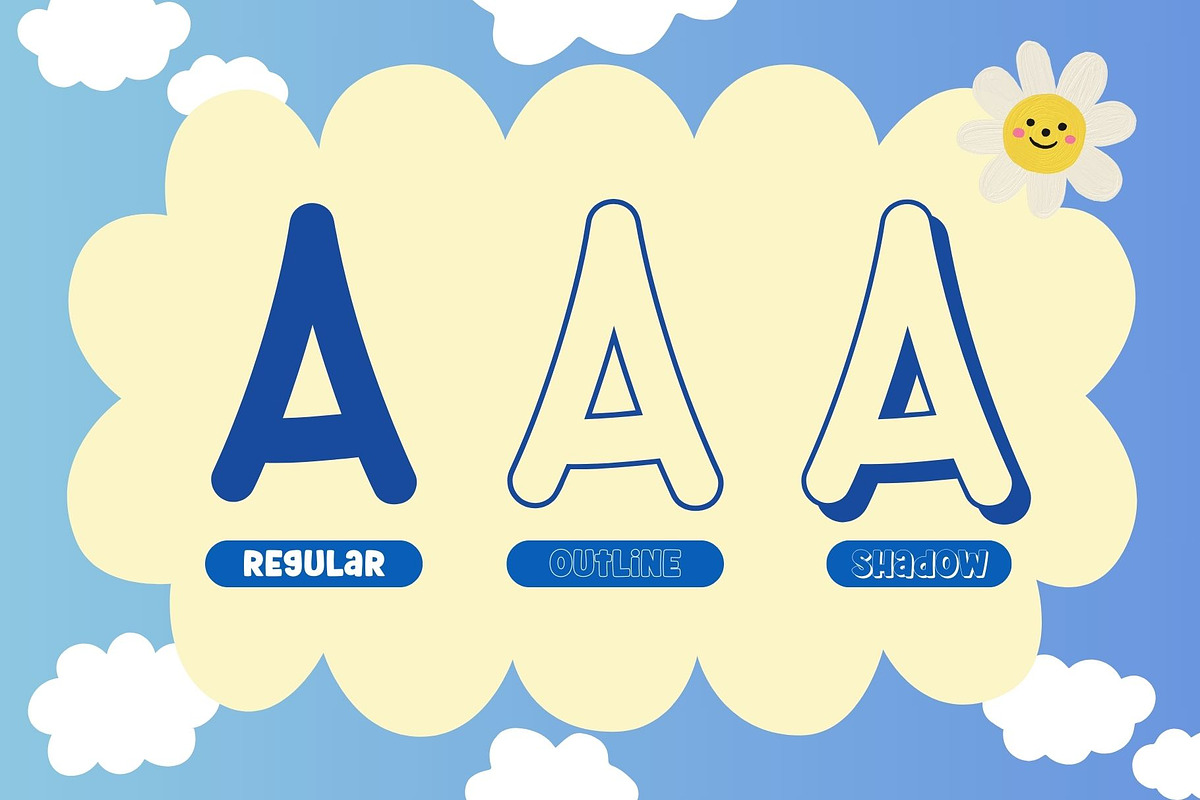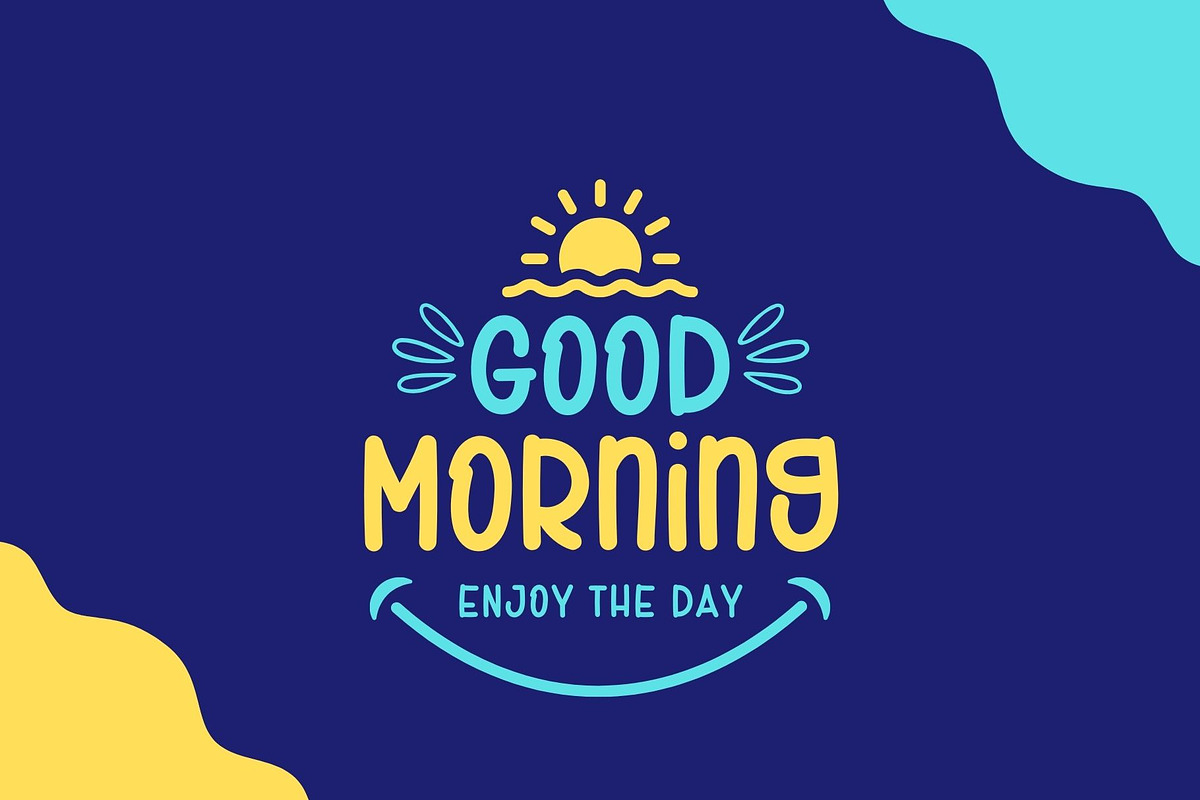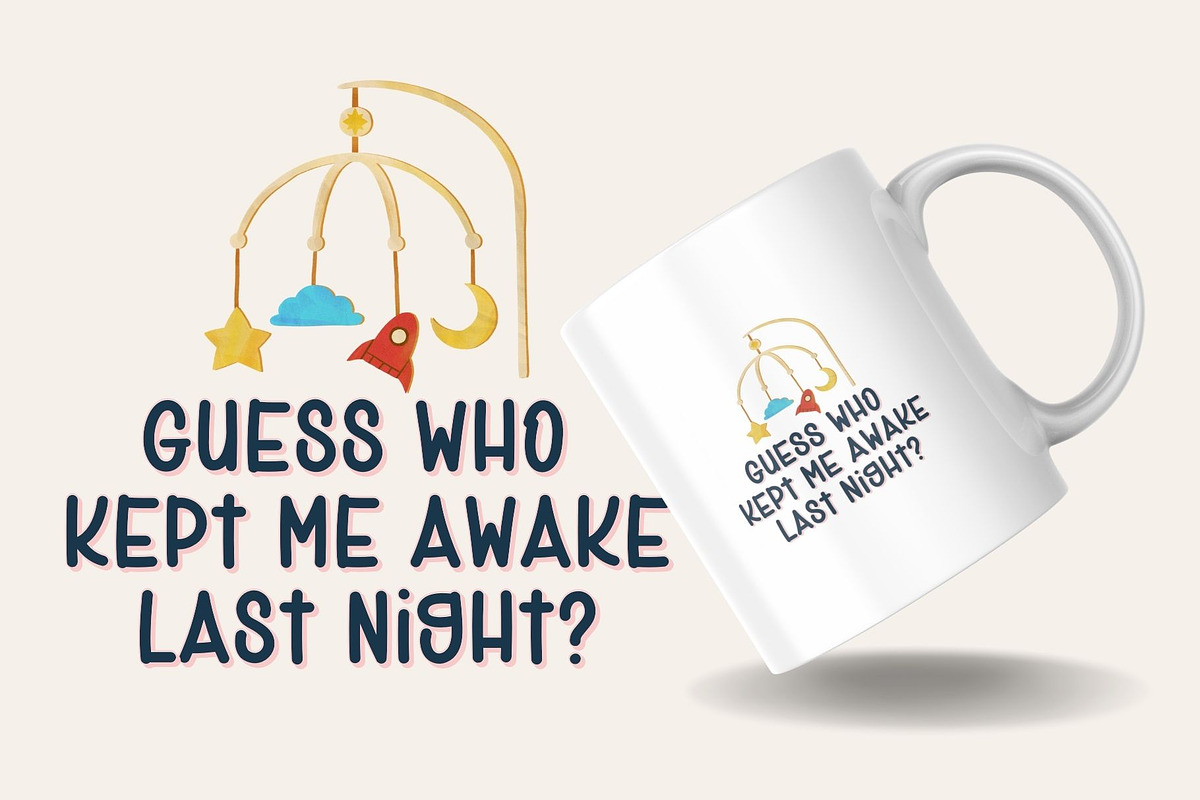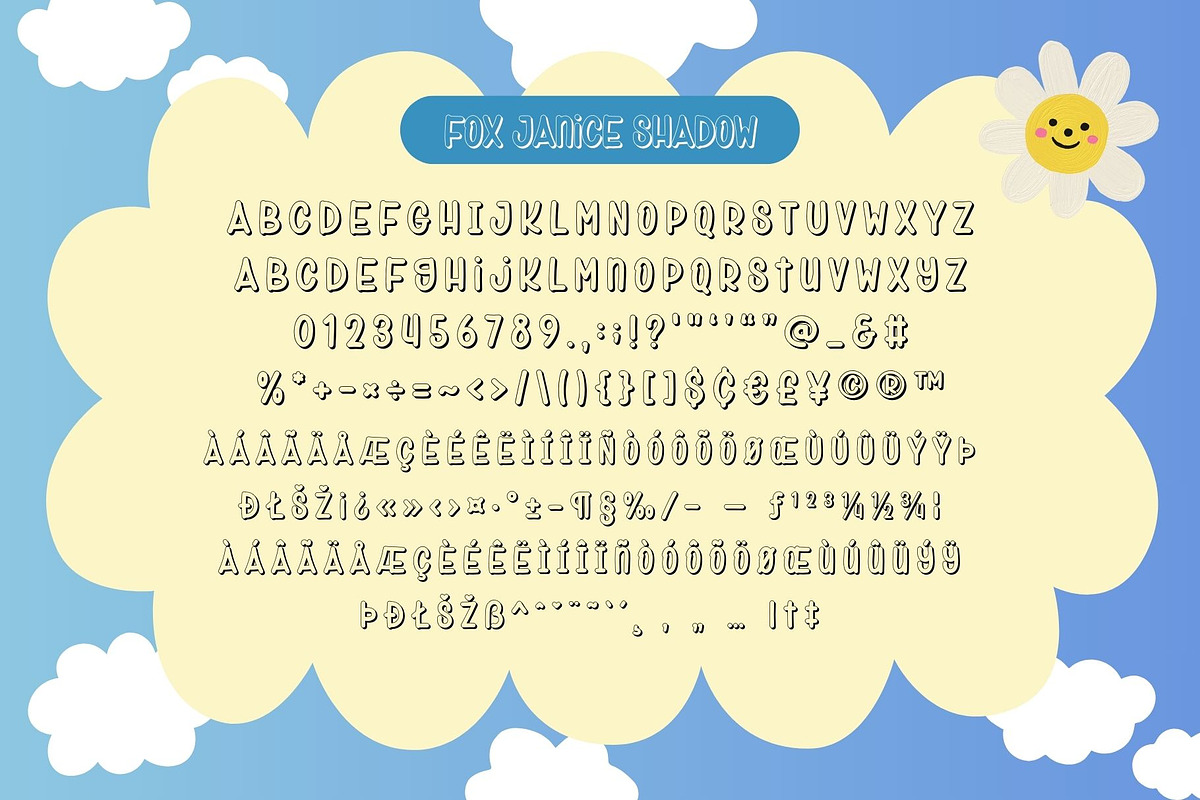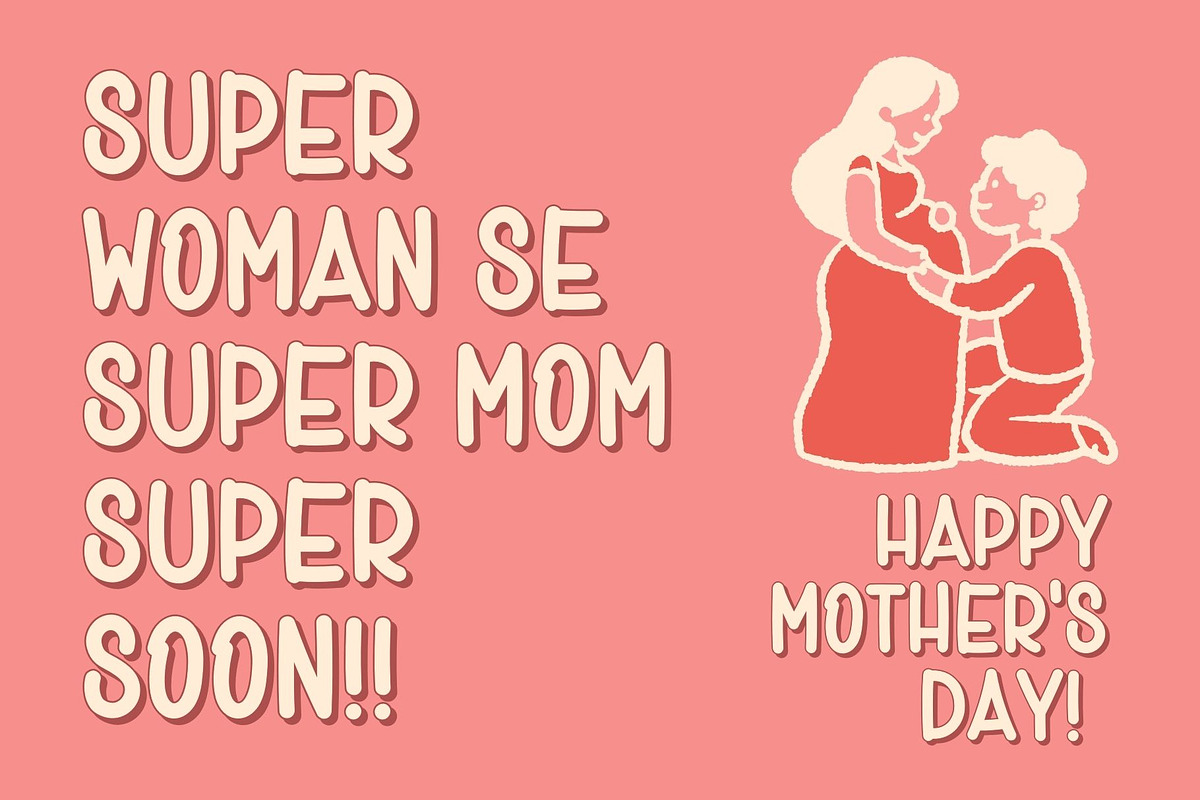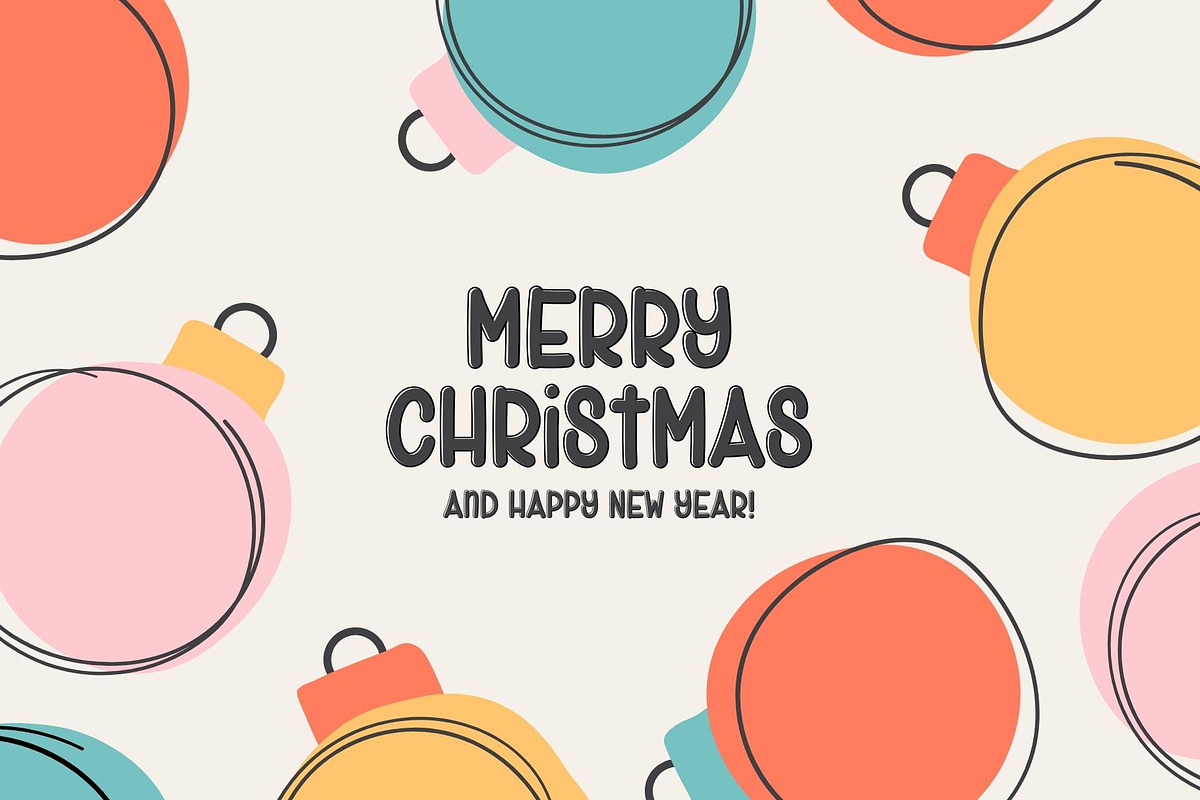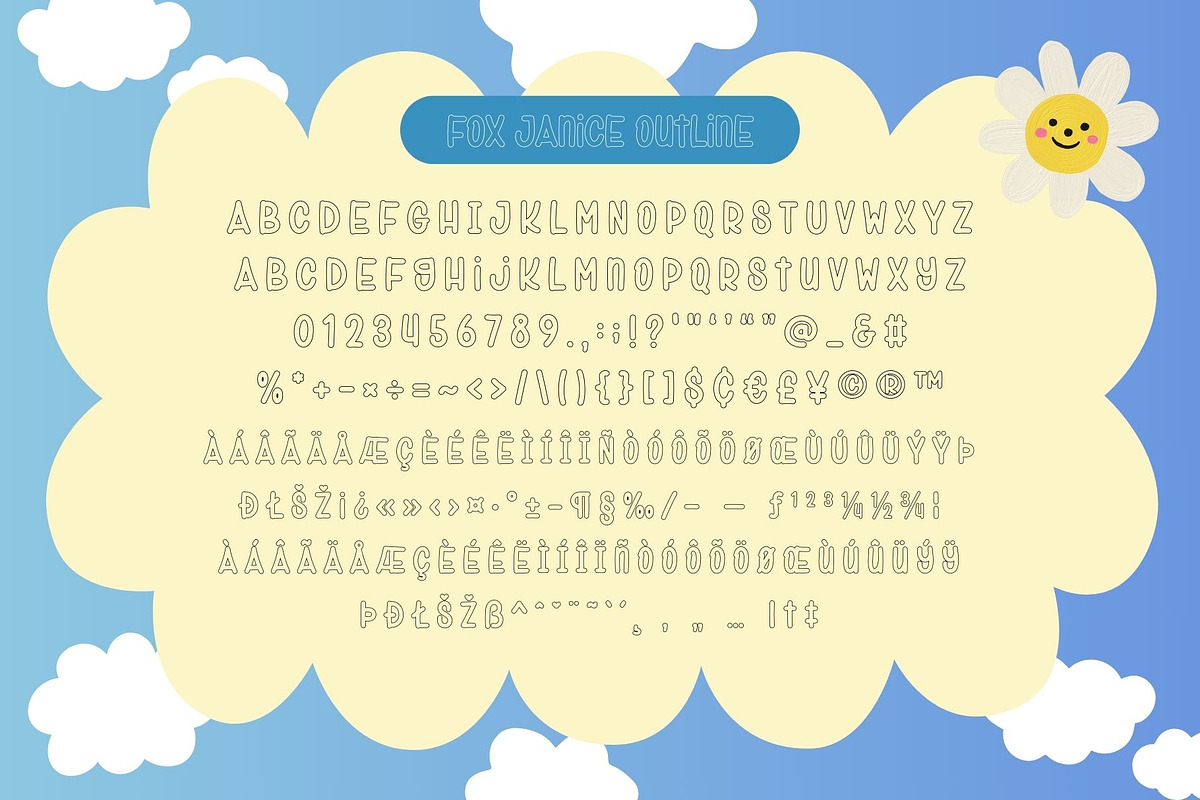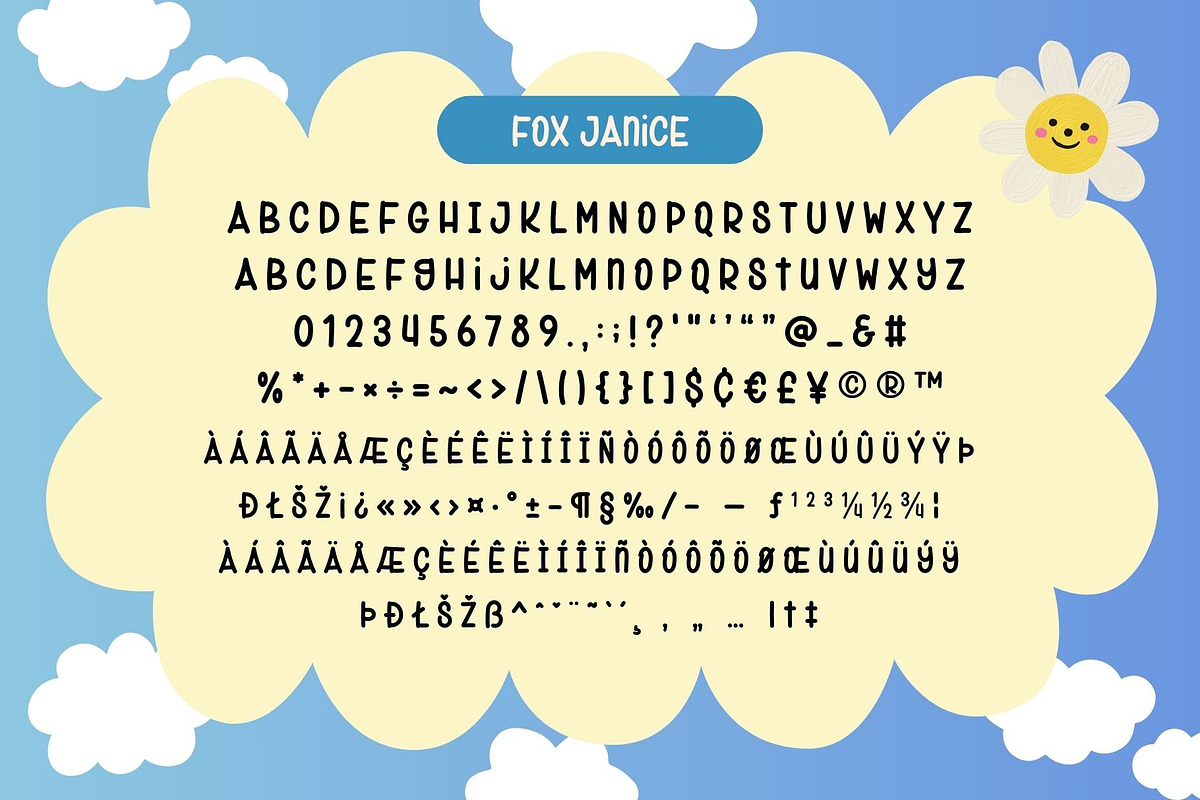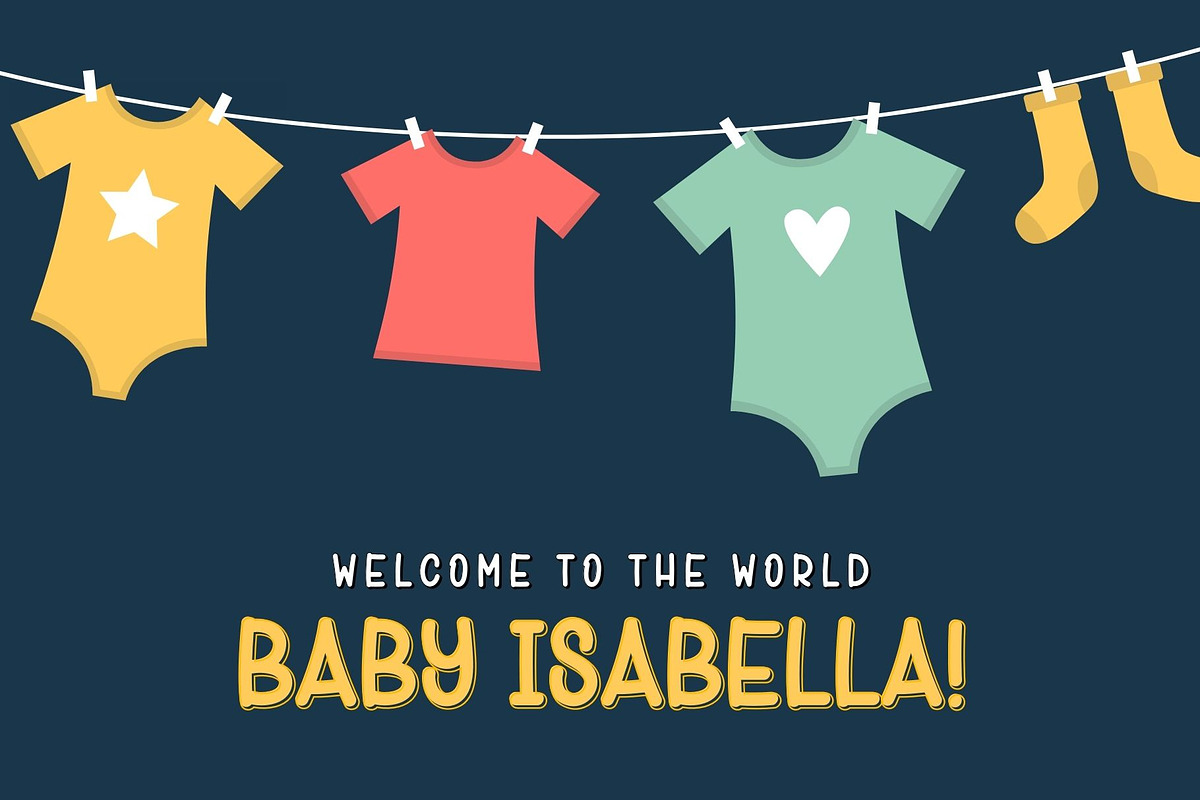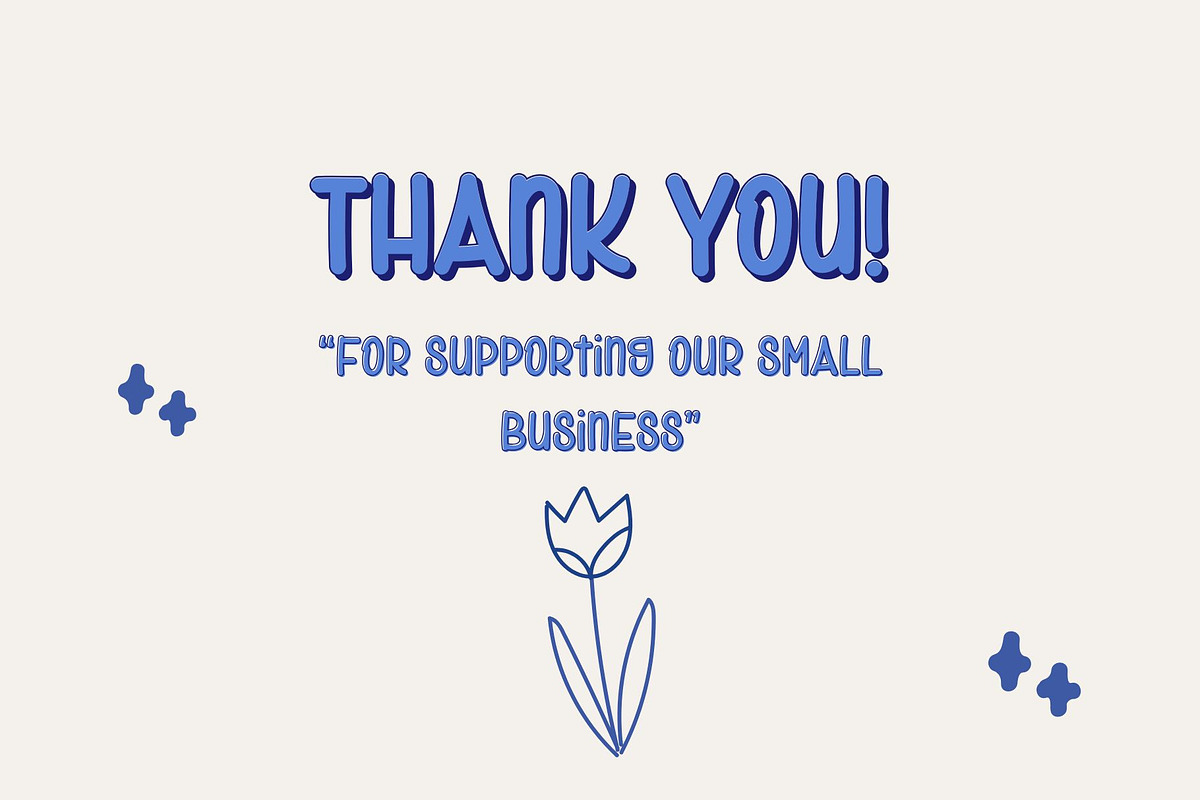
Fox Janice: 3 Font Styles
Fox Janice is a cute and playful handwritten font. Due to its versatility, it fits perfectly into any design idea, such as children’s projects, blog posts, logos, branding, ads, invitations, greeting cards, planners, photo albums, decorations, and much more.